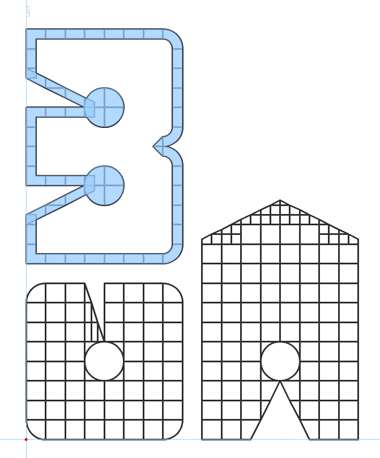
This is so cool.
Nice! Reminds me of razor blades.
Now that you've uploaded 2nd image, i understand the concept.
Beautiful & Creative
Great work elmoyenique. Nice samples too.
Cool! It’s got a cutout quality like it was made with paper, scissors, and a hole punch. A handmade reminiscence with strong ’70s psychedelia.
I can visualize an outline version at this same scale.
The o, I believe, would be slightly more successful in the legibility department if it were rotated 180° or flipped vertically.
I had the same thoughts about the 'o', but then of course the 'u' would have to change.
Great work :-) !
Congratulations! FontStruct Staff have deemed your FontStruction worthy of special mention. “zlash eYe/FS” is now a Top Pick.
A worthy TP for a fun, modern design.
Especially when seen in the sample, I have no problem with the legibility of the 'o'. 10/10
For me, it was the second sample that inspired my comment on o.
“oldest” reads clearly, but the two “on” pairings – while readable – are not highly legible. I think there could be an improvement. A narrower slice on o can keep it from conflicting too much with u. Here’s a composite example (and some other suggestions):
@will.i.ૐ: I'm with you and Lex, the "o" must be changed, I'll try it. And thanks for your all excellents suggestions.